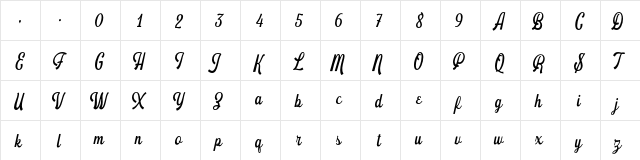
schramberg Regular
| Foundry | Runsell Studio |
| Designer | Satia Hayu Prabowo |
Design Context for schramberg Typeface
schramberg is a composed and adaptable typeface that performs quietly and consistently across a wide range of design contexts.